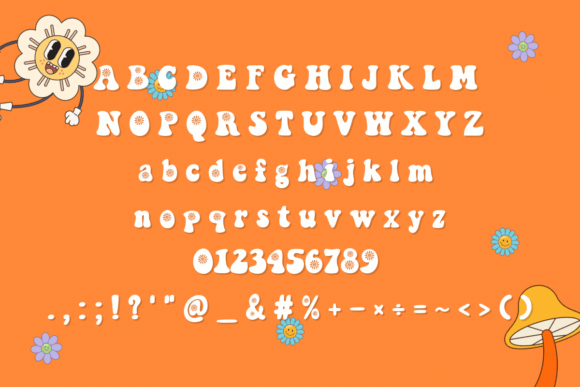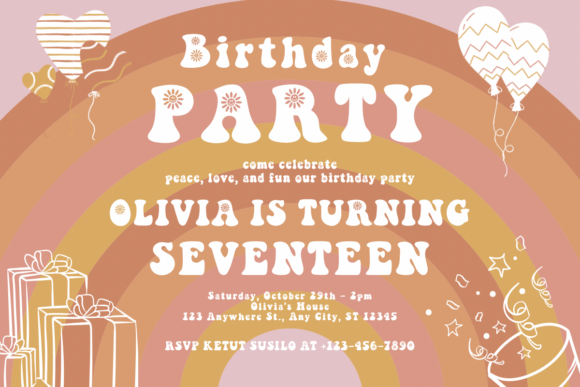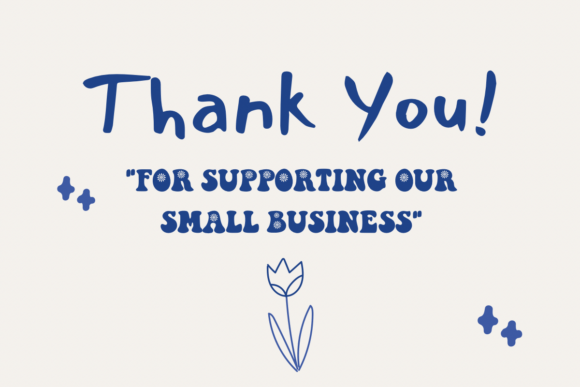
Groovy Cute Flower Font
Groovy Cute Flower is a delightful retro-inspired handwriting font that bursts with flower power and feel-good vibes. Its bouncy letters and floral embellishments channel the charm of the 60s and 70s, making it perfect for kids’ designs, vintage projects, festival posters, and cute apparel graphics. Funky, fun, and full of peace & love!